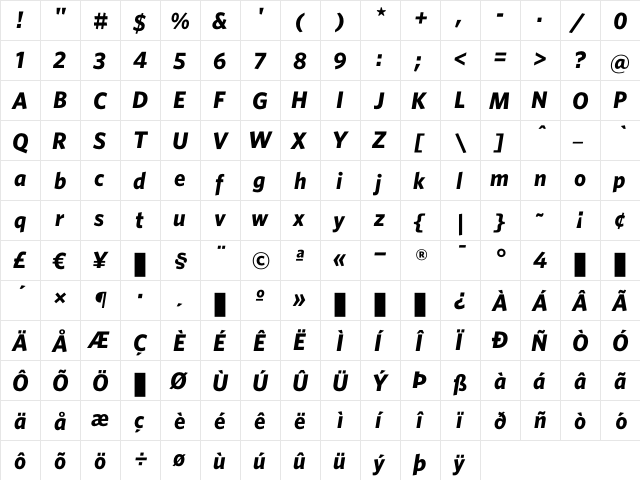
Whitney BoldItalic
Design Context for Whitney Typeface
Whitney offers clean, dependable letterforms without strong stylistic allegiance, making it a practical choice for designers who need flexibility. The dynamic lean of this cut emphasises speed and emphasis in any layout. The heavy weight commands attention and anchors typographic hierarchies.
Pro Tip: Use Whitney for emphasis, pull quotes, and subheadings where its slanted energy can add rhythm to the layout.